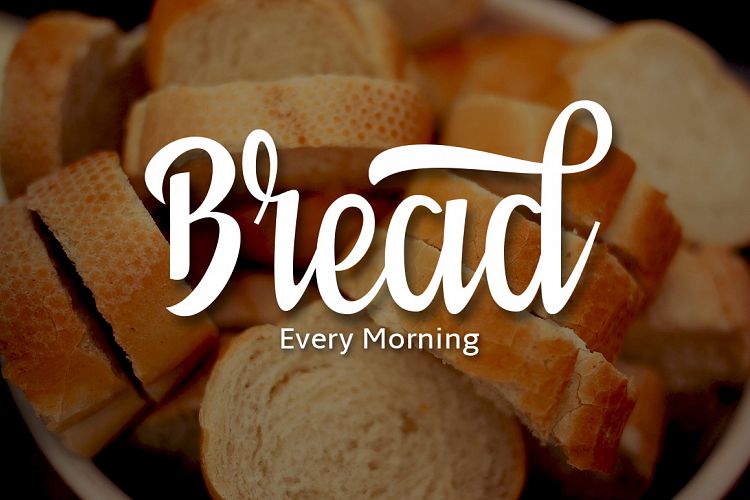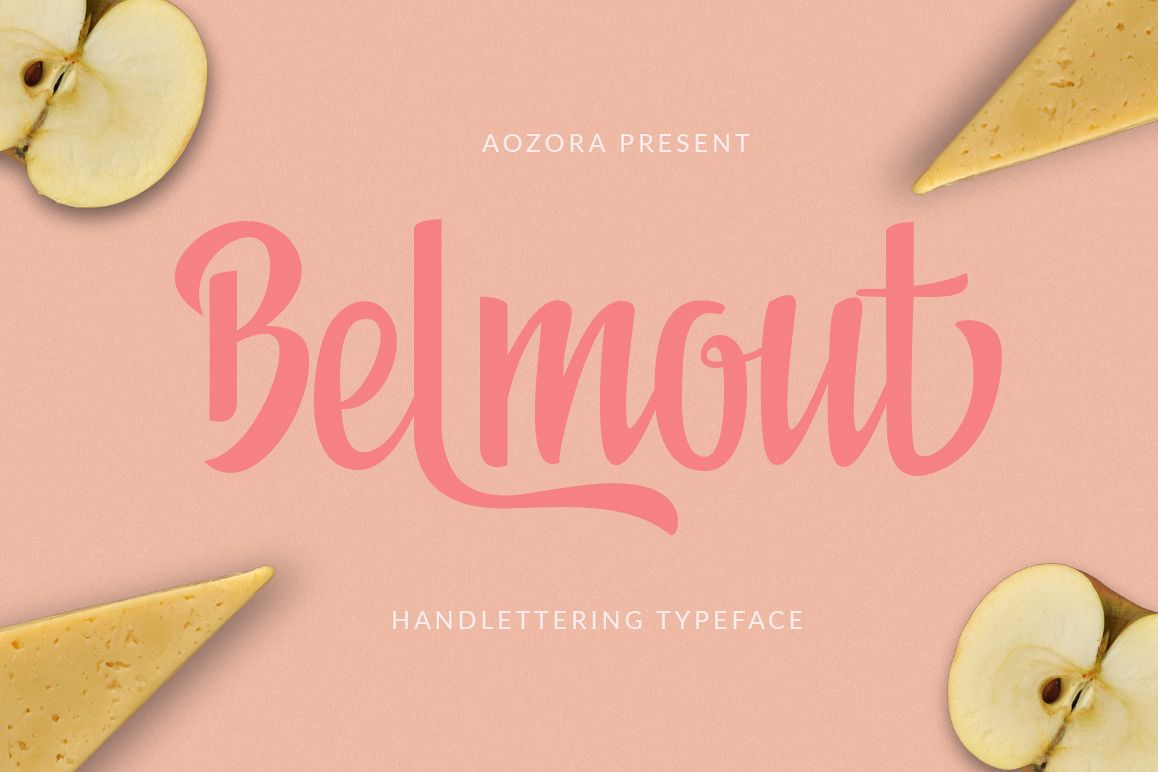
Belmout Script
Belmout Script Font
Belmout Script, is a modern and clasik, calligraphy typeface, perfect for your next design, such as logos, web design, printed quotes, invitations, cards, product packaging, headers and anything else about your imagination. With 362 glyphs, you can mix and match Belmout to fit your design. The alternative characters divided into several OpenType features such as Ligature, stylistic sets. It can be accessed by using OpenType savvy program such as Adobe Illustrator and Adobe InDesign And this Font has given PUA unicode (specially coded fonts).